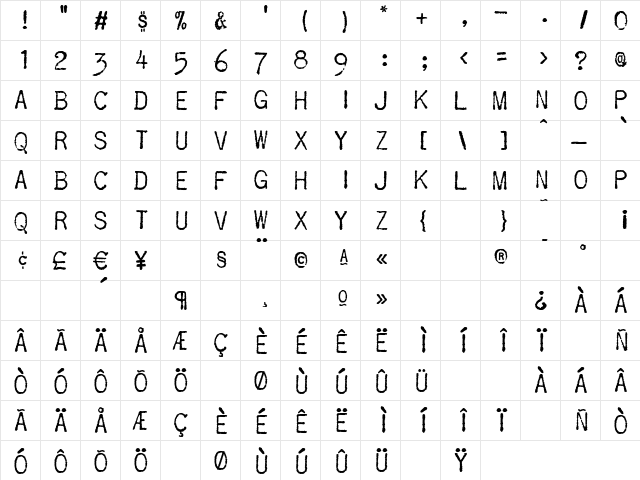
CablegramRegular Regular
Design Context for CablegramRegular Typeface
CablegramRegular is a composed and adaptable typeface that performs quietly and consistently across a wide range of design contexts.